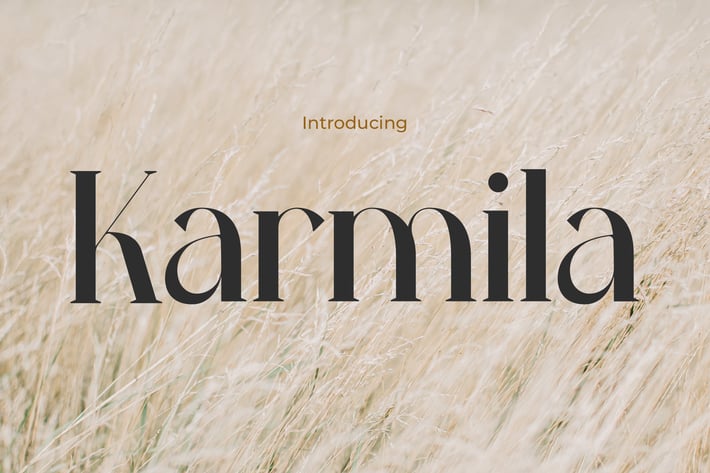
Karmila Modern Elegance Font
Karmila
High-contrast fashion typeface for elegant branding with soft curves and expressive vertical rhythm.
Karmila brings a sophisticated blend of modern editorial elegance and soft calligraphic nuances. Its graceful structure features tall x-heights, delicate hairlines, and contrasting thick strokes, delivering a font that feels upscale yet contemporary. The font’s vibe is effortlessly stylish—ideal for fashion, lifestyle, and luxury branding, while its letterforms exude both sharpness and warmth.
Whether you're working on a beauty brand identity, designing a magazine cover, or curating an elegant packaging design, Karmila lifts your message with confidence and class. The refined tone it sets is perfect for brands seeking visual sophistication, making it especially powerful in beauty, wellness, editorial, or fashion-forward product presentations. This font helps you command attention while whispering luxury.
Key Features
Elegant & Balanced
- High contrast strokes with a tall, narrow profile
- Sharp terminals mixed with gentle curves for dynamic elegance
Visually Stunning Headlines
- Perfect for fashion lookbooks, luxury ads, packaging, and editorial spreads
- Creates hierarchy and emotion in high-end layouts
Expert Craftsmanship
- Meticulous proportioning for strong legibility and aesthetic flow
- Harmonized uppercase/lowercase pairing for cohesive visuals
Refine your next design with the timeless elegance of Karmila. It’s not just a typeface—it’s an attitude, crafted to empower your creative vision with quiet confidence and upscale appeal.